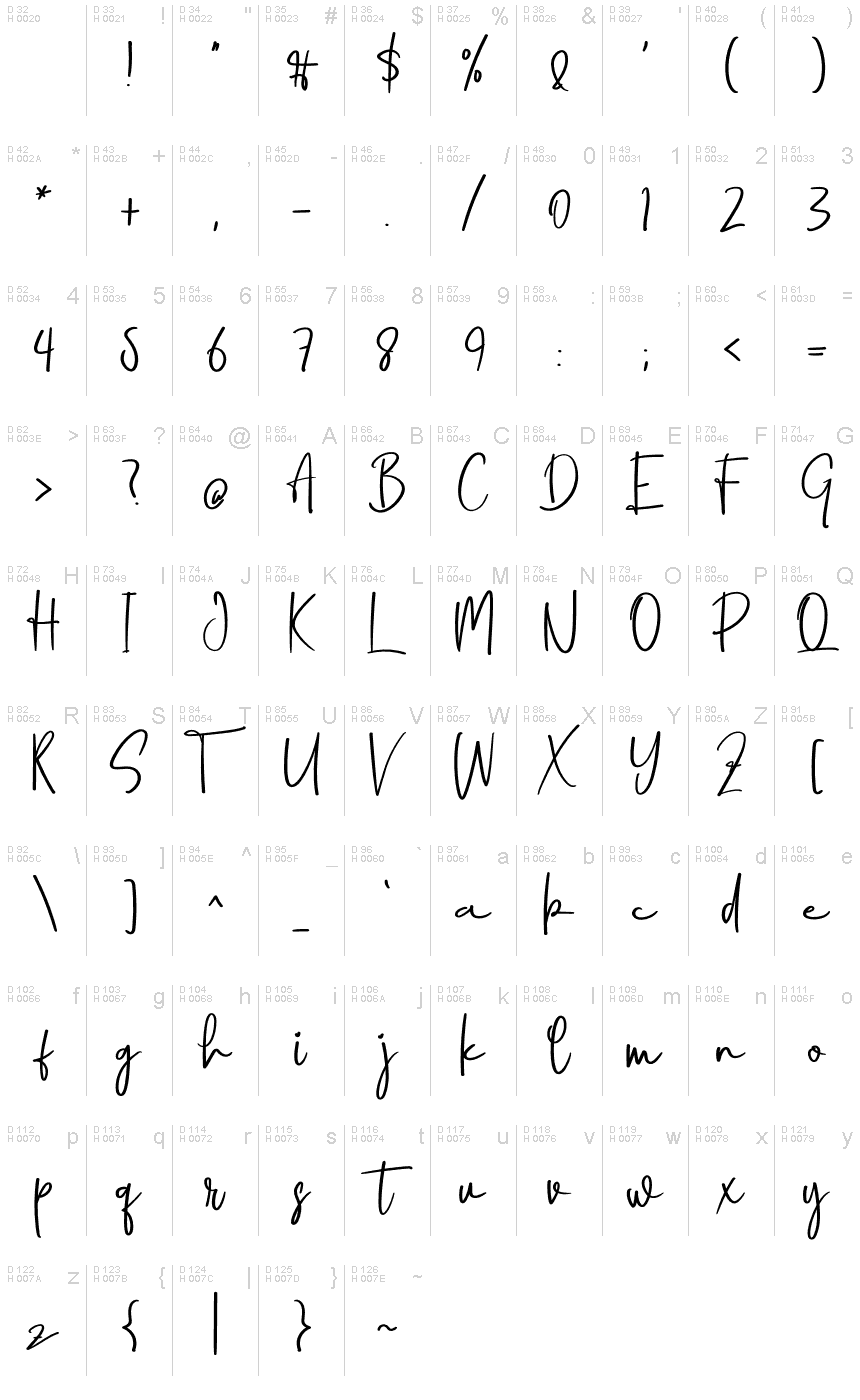
Onions
Onions is a charming handwritten font designed by Abil Shidiq A. Its light weight and semi-condensed width give it a delicate and unique appearance.
Perfect for projects that require a touch of elegance such as wedding invitations, stylish logos, and sophisticated branding materials. The flowing strokes of Onions add a personal and intimate feel to any design, making it suitable for heartfelt greeting cards or expressive handwritten quotes.
Let Onions bring an air of refined beauty to your next creative endeavor.